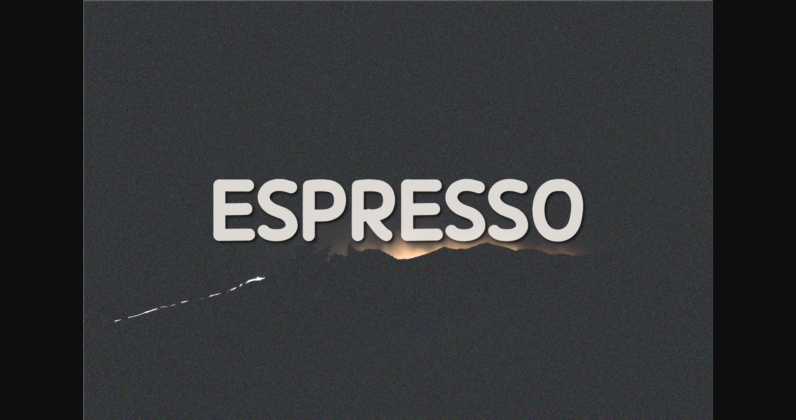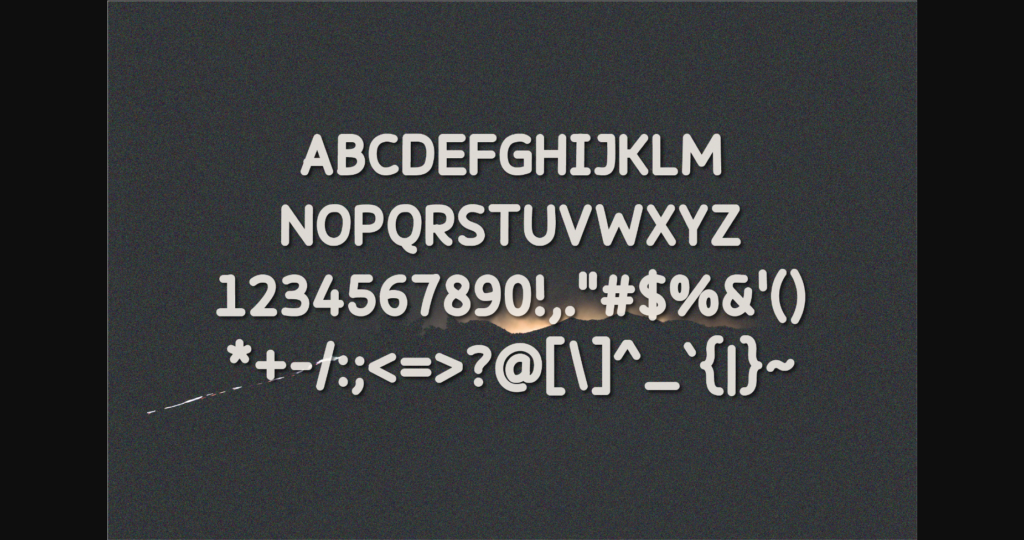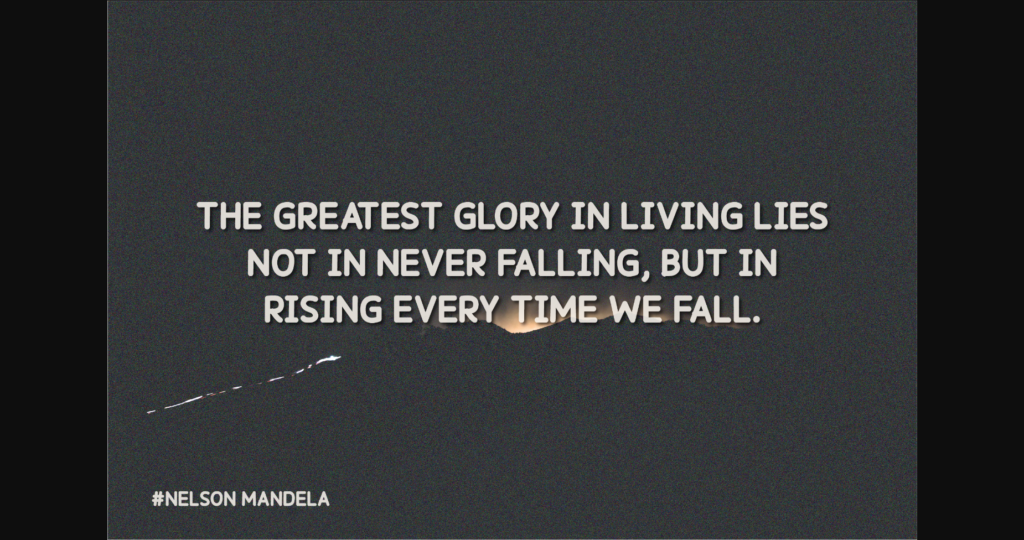
HomeSans Serif FontsEspresso Font Sans Serif Fonts Espresso Font FacebookXPinterestWhatsApp 1 of 7 ... Espresso Font Poster 2... Espresso Font Poster 3... Espresso Font Poster 4... Espresso Font Poster 5... Espresso Font Poster 6... Espresso Font Poster 7... About Espresso Font Espresso is a quirky all-caps font made up of capital letters. This font is perfect for social media or crafty projects. Simple and smooth perfect for crafting, t-shirts, decals, cards, invitations and so much more. DOWNLOAD NOW People also explored Dream Good Font Bitelover Signature Font Arlington Font Caslon Family 18 style Font Under Your Skin Font Blacklock Signature Font Bamboo Font Chyrllene 325 0 TagsEspresso Font Previous articleBlueberries FontNext articleStuffed French Font LEAVE A REPLY Cancel reply Comment: Please enter your comment! Name:* Please enter your name here Email:* You have entered an incorrect email address! Please enter your email address here Website: Save my name, email, and website in this browser for the next time I comment. Personal Use Free Anders Personal Use Free Read more about this font Stone Garden Personal Use Free Read more about this font Midnight Show Personal Use Free Read more about this font Beloved Script Personal Use Free Read more about this font BLOG Fonts That Capture the Spirit of New York City New York City is more than just a place—it’s an experience, a rhythm, a visual language... Top 7 Google Fonts Alternatives for Faster and Privacy-Friendly Web Design (2025) Top 10 Handwritten Fonts That Elevate Your Designs To increase your work productivity, choose the most readable fonts.